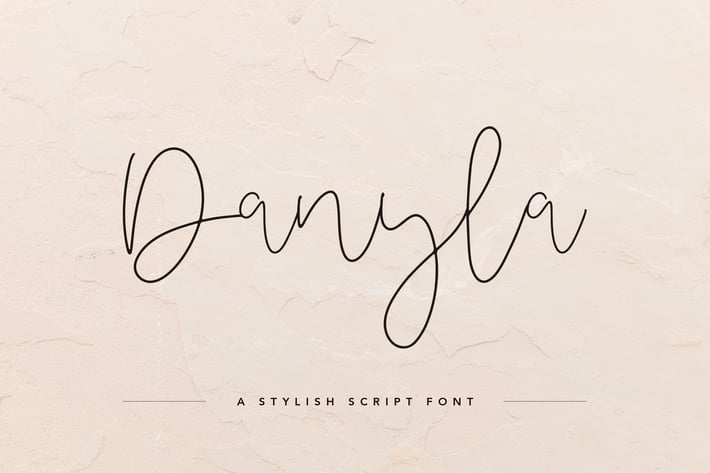
Danyla Stylish Signature Font
Bring a touch of sophistication and effortless charm to your creative projects with Danyla, a stylish signature font that embodies modern elegance and personal expression. With its graceful script lines and natural handwritten flow, Danyla is more than just a typeface, it’s a creative statement. Perfectly blending simplicity and refinement, this font is designed to help you create designs that stand out with authenticity and style.
About the Font
Danyla is a handwritten script font crafted with a unique signature feel, making it ideal for those who want to infuse a personal and creative touch into their work. Each character is thoughtfully designed to replicate the look of real handwriting, giving your text an organic flow while maintaining clarity and legibility. Its delicate strokes and smooth curves create an aesthetic that is both modern and timeless, making it suitable for a wide range of design purposes.
Unlike heavy or formal typefaces, Danyla carries a light, graceful vibe that feels warm and approachable. Whether you’re creating for professional or personal projects, this font brings a sense of individuality and sophistication that makes your message memorable.
Type & Style
As a script font, Danyla works seamlessly for projects where elegance and fluidity are key. Its fine lines and stylish loops make it perfect for both display and decorative purposes. The versatility of this font means it can complement minimalist designs, serve as a statement piece in bold branding, or add refinement to delicate creative works.
Suitable Uses
Danyla is a versatile font suitable for a variety of creative applications, including:
+ Branding & Logo Design – Add a personalized signature-style touch to brand identities, from luxury products to boutique shops.
+ Wedding & Event Invitations – Create romantic and stylish invitations, greeting cards, and stationery with a sophisticated handwritten look.
+ Social Media & Blogging – Elevate your posts, headers, and graphics with a chic, elegant flair that captures attention instantly.
+ Product Packaging – Whether for fashion, beauty, or lifestyle products, Danyla adds an authentic and stylish tone to labels and packaging.
+ Print Materials – From posters and business cards to brochures, this font ensures your designs exude character and elegance.
+ Signatures & Personal Projects – Use it for digital signatures, journaling, or any design that requires a warm, handwritten feel.
Whether you’re a designer creating polished branding materials or an entrepreneur building your own personal aesthetic, Danyla gives you the creative freedom to express ideas with a touch of style and authenticity.
Why Choose Danyla?
The true beauty of Danyla lies in its ability to balance sophistication with simplicity. It’s stylish without being overly elaborate, elegant yet still approachable, and creative while staying versatile. Its refined strokes work well in both small text and large-scale display, making it easy to adapt across mediums.
With support for uppercase and lowercase letters, as well as numbers and punctuation, Danyla ensures that you have all the essential tools to create fully customized designs. Whether you’re working on branding, stationery, or digital graphics, this font delivers consistency and quality every time.